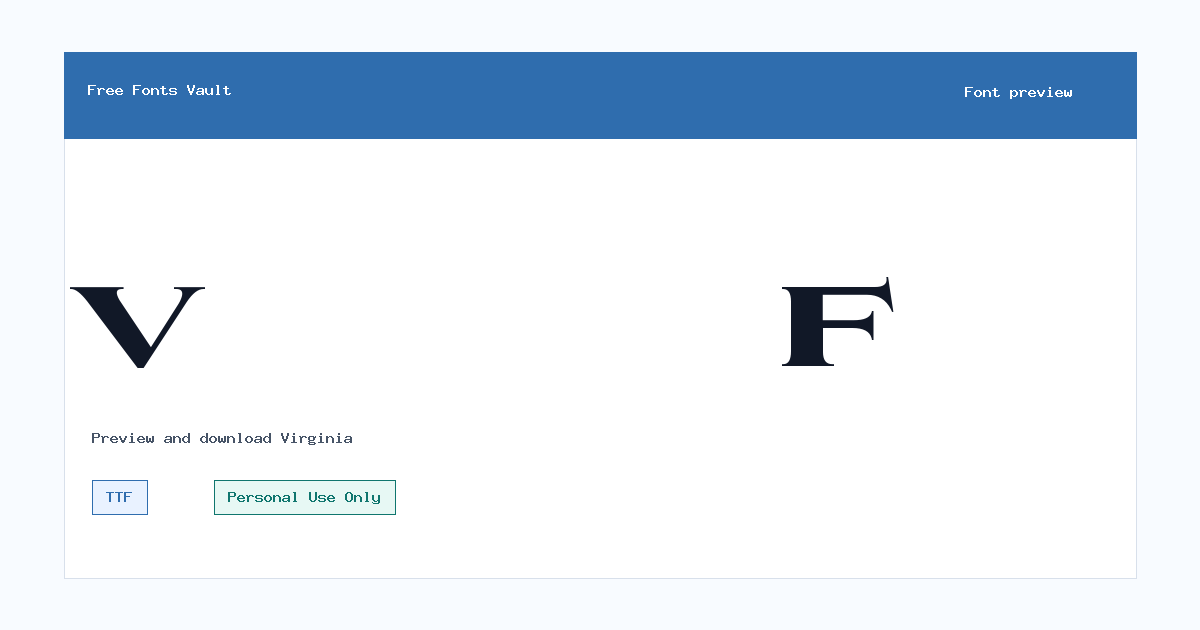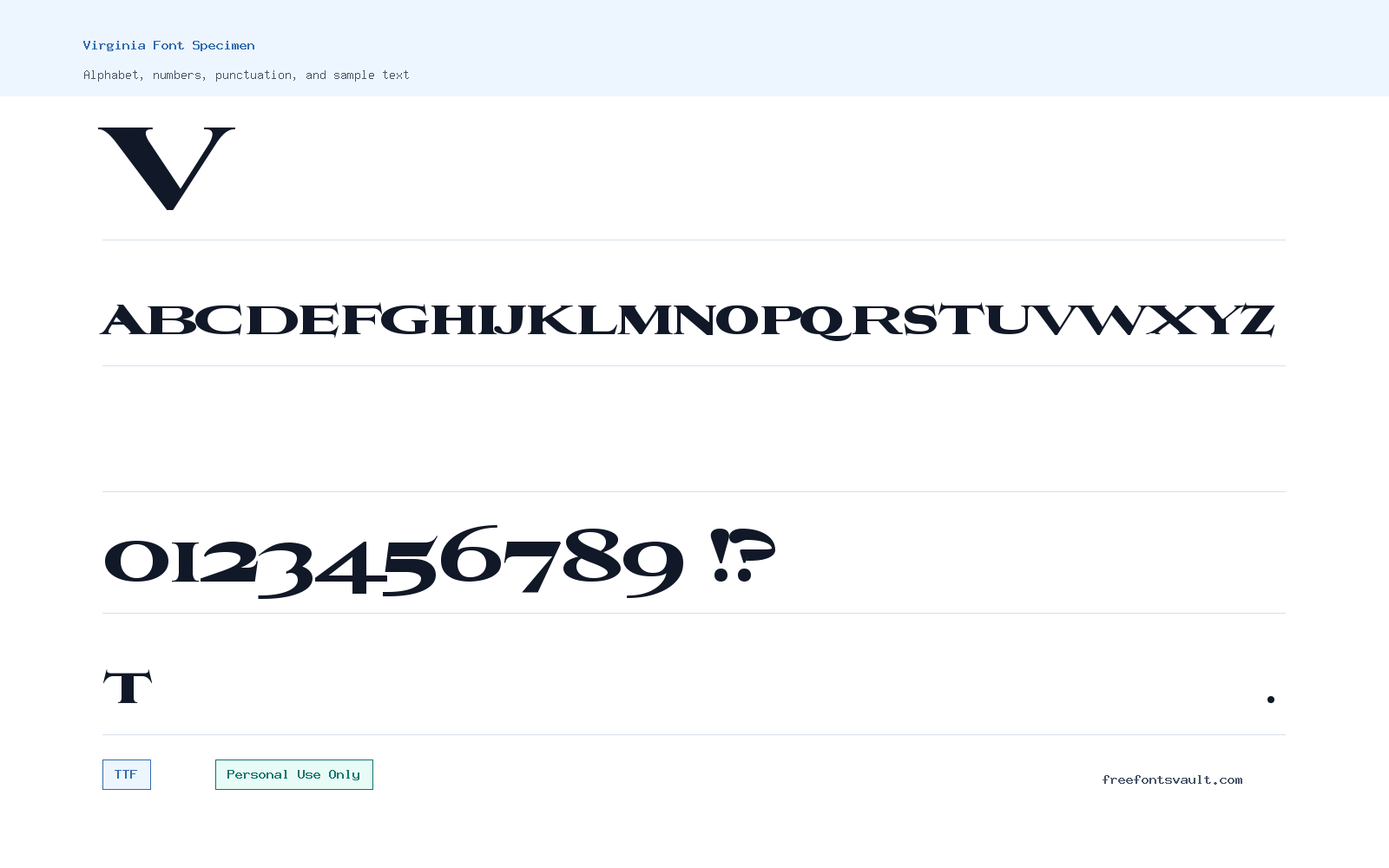
Virginia
Virginia font.
Virginia is a slab serif font with a steady, structured look that works best when you want text to feel clear, firm, and decorative without becoming overly ornate.
About Virginia Font
Virginia uses a slab serif style, so its letterforms are likely to feel more solid and squared-off than a soft traditional serif. That makes it a practical choice for display settings where the words need some weight and character. Try it first in names, short titles, poster lines, labels, quote graphics, or social media artwork. The regular weight gives you a straightforward starting point, especially if you want a font that can stand on its own without needing heavy effects.
- Slab serif style with a firm display-friendly feel
- Personal posters, quote graphics, labels, and social media titles
- Short headings, name designs, mockups, and craft artwork
Use Virginia where the text is short enough to let the slab serif details show clearly. Test it at the final size before using it in print or image exports, and avoid relying on it for dense body text unless the preview remains comfortable to read.
What kind of designs suit Virginia?
Virginia is a good fit for short display text such as headings, posters, labels, quote images, thumbnails, and personal design mockups.
Can I use Virginia for paragraph text?
You can test it, but it is better suited to short text. For longer reading, pair it with a clean body font and keep Virginia for titles or accents.